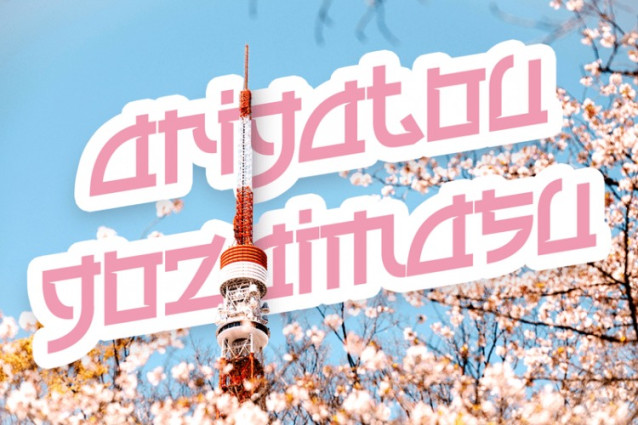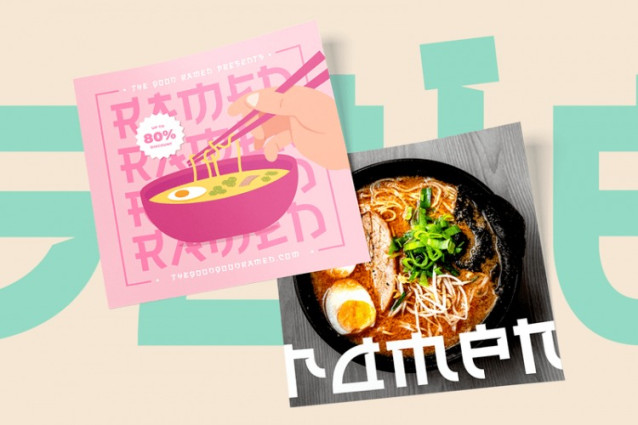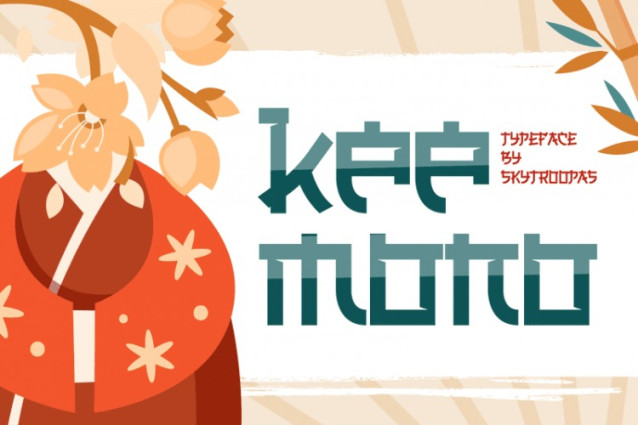
Keemono Font
Keemono Font is a whimsical and expressive typeface inspired by Japan’s unique blend of tradition and modern artistry. Its bold and rounded shapes, combined with playful, slightly irregular strokes, create a dynamic and friendly design. The font’s name, “Keemono,” evokes a sense of charm and creativity, perfectly suited for designs that aim to stand out with a touch of cultural flair.
Keemono strikes a balance between simplicity and character, making it highly versatile for various applications. Its design incorporates elements reminiscent of Japanese calligraphy but adapts them into a more casual and approachable style. The result is a typeface that is easy to read yet rich with personality, ensuring it captures attention while maintaining a lighthearted, welcoming feel. Whether used in digital or print projects, Japanese font Keemono adds a vibrant, cultural touch that resonates with audiences of all ages.
Japanese font Keemono is ideal for creatives and businesses looking to infuse their designs with a playful, Japanese-inspired aesthetic. It works particularly well for branding projects in industries such as food, entertainment, and lifestyle. For example, it’s perfect for logos, menus, and packaging for Japanese restaurants, dessert shops, or snack brands. Its cheerful and approachable look also makes it a great fit for children’s products, such as toys, educational materials, or kids’ fashion labels.
Graphic designers will find Keemono especially useful for crafting eye-catching posters, event flyers, and social media graphics. It’s an excellent choice for festivals, anime conventions, or promotional materials for cultural events. Additionally, its bold yet friendly appearance makes it perfect for designing headlines, product labels, and merchandise like t-shirts or stationery.
For content creators and influencers, Keemono brings a unique visual appeal to videos, blog headers, or Instagram posts. It’s ideal for brands that want to connect with younger audiences or those embracing vibrant, playful aesthetics. Furthermore, educational institutions or publishers can use Keemono to design workbooks, playful infographics, or materials related to Japanese culture.
By blending cultural authenticity with modern creativity, Japanese font Keemono ensures that your project feels both dynamic and engaging. Whether you’re designing for food, fashion, or fun, this font is the perfect tool to bring your vision to life with a distinctive, unforgettable style.